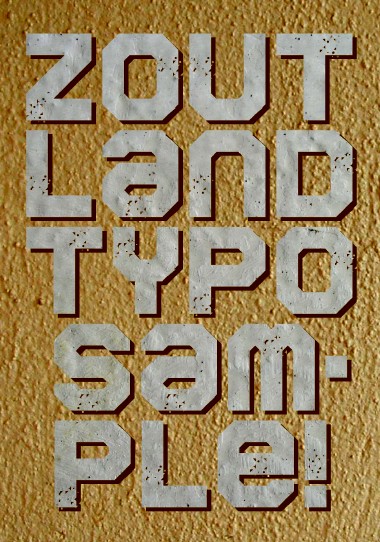
zoutland eYe/FS
Old project put a day. (No two without three.)
Unicase
Old project put a day. (No two without three.)
Although, I've been meaning to do this one for a few months now... (And I probably still will!)
Wow! It's amazing, how you've managed to beat those diagonal curves into being the same width as the vertical lines (which is something I can't do for the life of me).